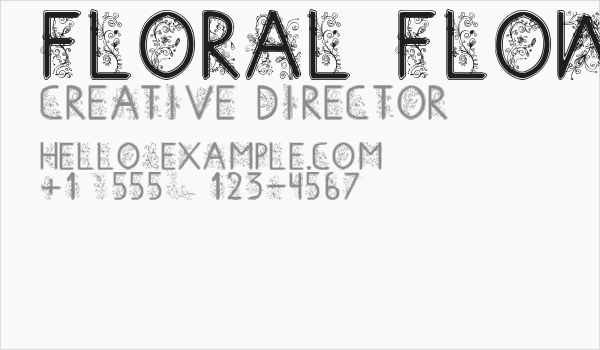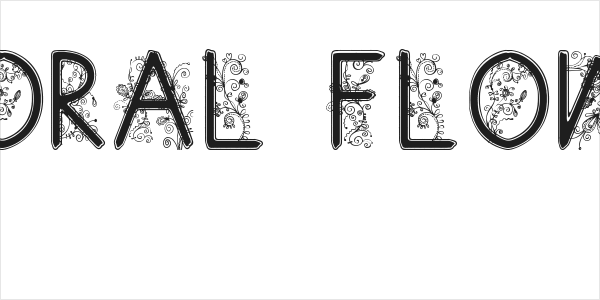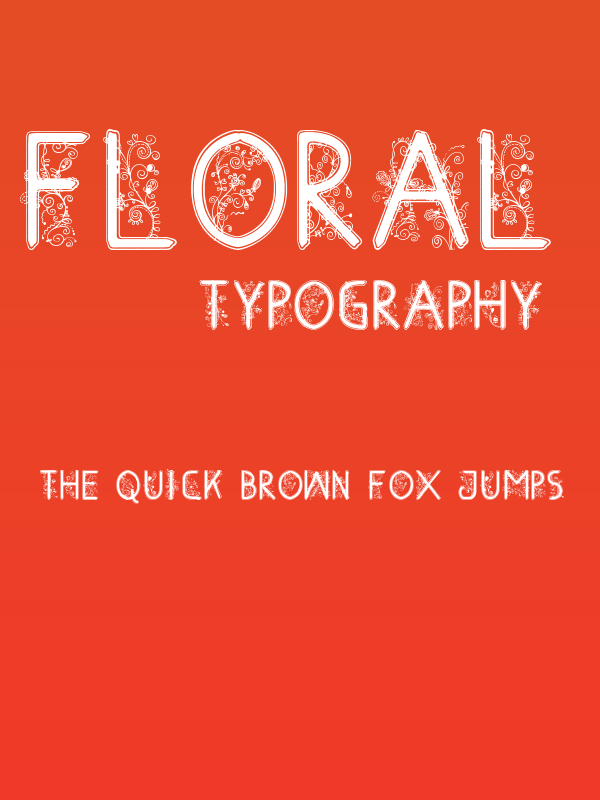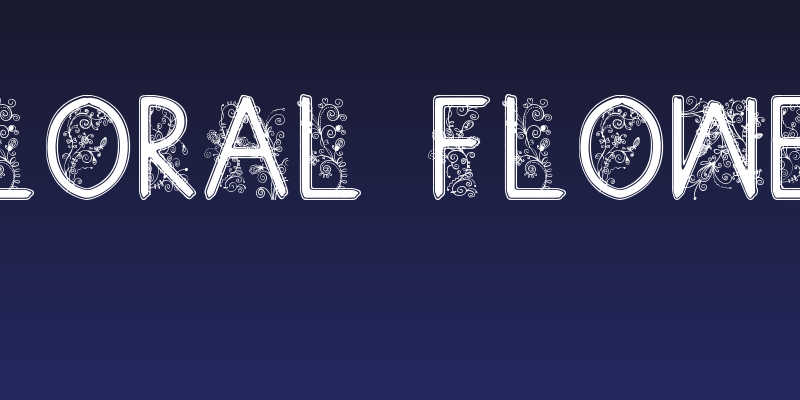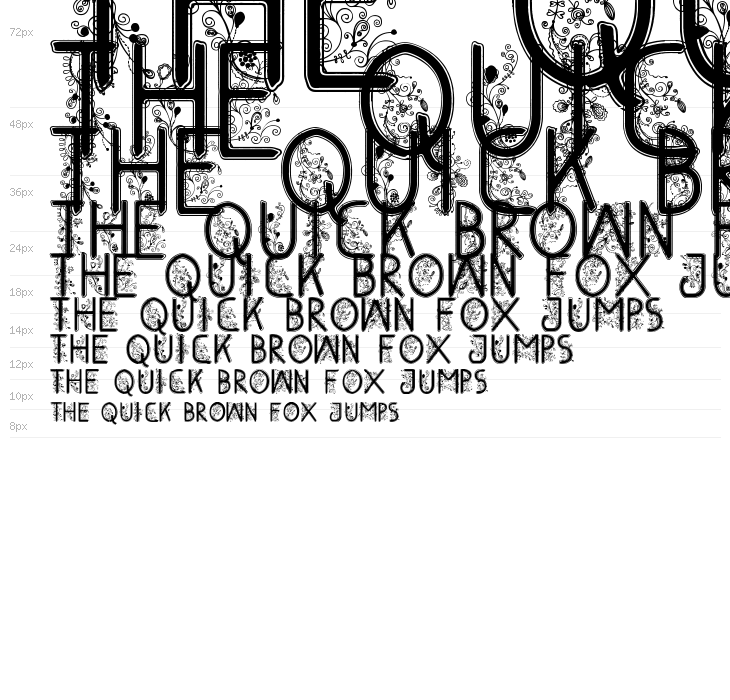
floral flower Font
floral flower Description
This decorative font features intricate floral patterns integrated into each character, creating a unique and artistic appearance. The letters are bold and have a strong presence, with detailed floral embellishments that add a touch of elegance and sophistication. The design is consistent across uppercase, lowercase, and numeric characters, ensuring a cohesive look. The floral elements are carefully crafted, making this font ideal for projects that require a touch of nature or a vintage aesthetic. The overall style is both ornate and readable, making it suitable for various creative applications.
| Proposed Projects | Ideal for wedding invitations, greeting cards, branding for floral shops, or any project that requires a decorative and elegant touch. |